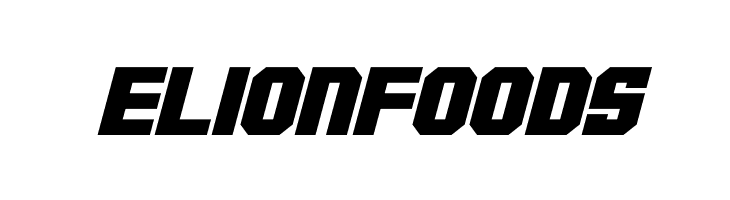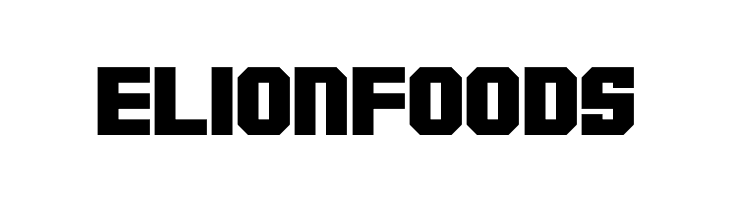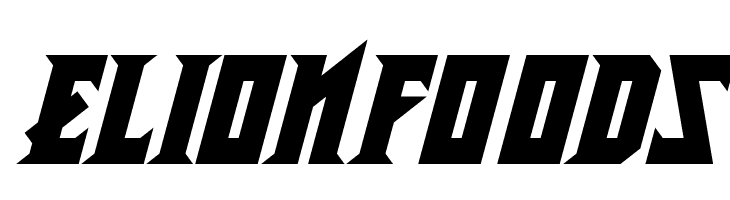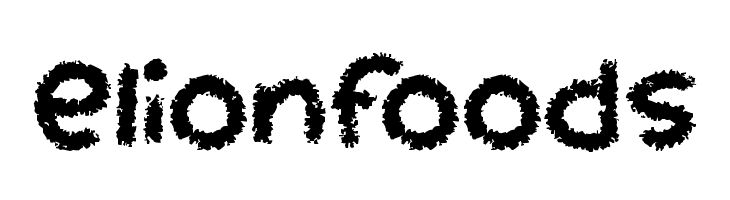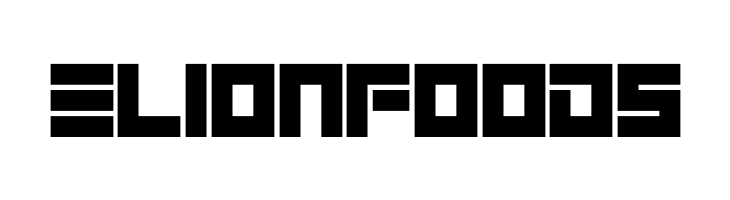
A bold, italic, futuristic font with sharp, angular lines and a modern style.
A bold, geometric font with thick strokes and sharp angles, perfect for impactful designs.
A bold, italic font with a dynamic, modern style and uniform stroke thickness.
A futuristic, geometric font with sharp angles and a blocky style.
A bold, italic font with a modern and dynamic style.
A dynamic, modern italic font with a sleek, elongated style.
A bold, futuristic font with sharp, angular edges and a geometric structure.
A bold, futuristic italic font with sharp, angular edges.
A playful, bold font with rounded characters and dot embellishments, perfect for creative projects.
A bold, angular font with a futuristic, cyberpunk aesthetic.
A bold, expressive brush-style font with a raw, artistic appearance.
A bold, brush-style font with an energetic, hand-painted look.
A bold, futuristic font with a mechanical and industrial aesthetic.
A bold, playful script font with a handwritten style.
A futuristic, italic font with sharp angles and a dynamic, modern design.
A futuristic, angular font with a modern and dynamic style.
A bold, italicized, futuristic font with geometric angles and a dynamic style.
A bold, geometric font with a futuristic, robotic style.
A bold, italicized font with a dynamic, angular design.
A bold, angular, italic font with a dynamic and aggressive style.
A playful, textured font with a chalkboard-inspired, hand-drawn style.
A futuristic, italic font with bold, angular characters and a dynamic style.
A bold, geometric font with a futuristic and digital aesthetic.
A bold, italic font with a modern, dynamic design.
A bold, geometric font with a strong, modern presence.
A bold, decorative slab serif font with unique cut-out details.
A bold, geometric typeface with a futuristic and angular design.
A bold, angular font with a modern, cut-out style.
A bold, italicized font with sharp angles and an energetic style.
A futuristic, angular font with a bold, tech-inspired design.
A futuristic, angular font with a bold, sci-fi aesthetic.
A futuristic, angular italic font with a sleek and dynamic design.
A bold, italic, futuristic font with angular, geometric characters.